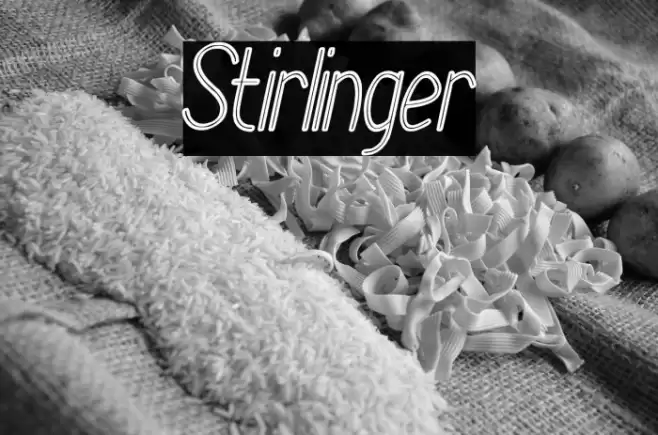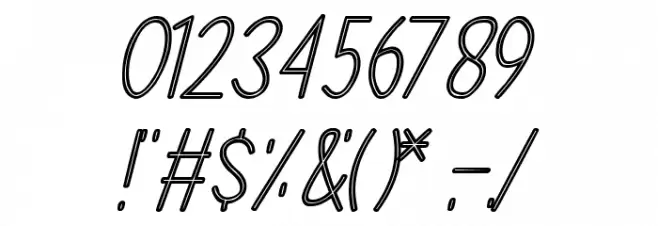
Stirlinger Font
Stirlinger Description
This font features a unique, double-line design that gives it a modern and playful appearance. The characters are slightly slanted, adding a dynamic feel to the text. The uppercase and lowercase letters maintain a consistent style, with rounded edges and a smooth flow. The numbers and special characters are designed to match the overall aesthetic, ensuring a cohesive look across all text elements. The font's open structure and clean lines make it highly legible, while its distinctive style adds a touch of creativity to any project.
A modern, double-line font with a playful and dynamic slant from Regular fonts.